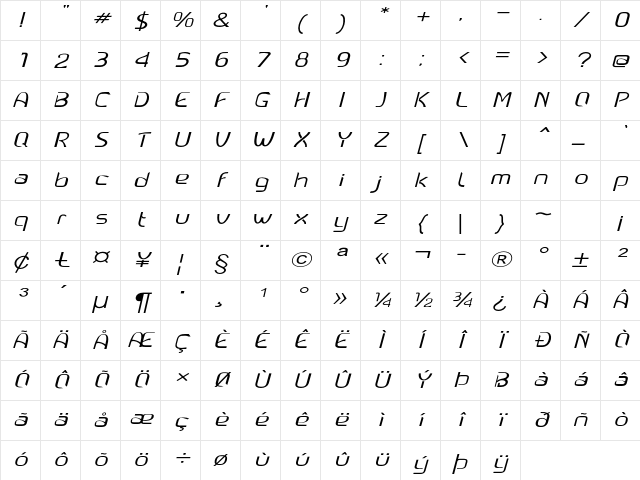
Callum Expanded Italic Free Font
Callum Expanded Italic
Design Context for Callum
Callum is a composed and adaptable typeface that performs quietly and consistently across a wide range of design contexts. The slanted form adds forward momentum and visual energy.
Pro Tip: Use Callum for emphasis, pull quotes, and subheadings where its slanted energy can add rhythm to the layout.